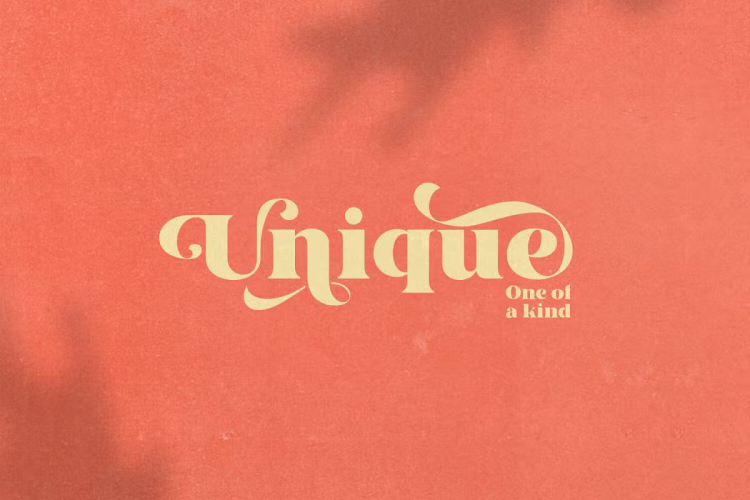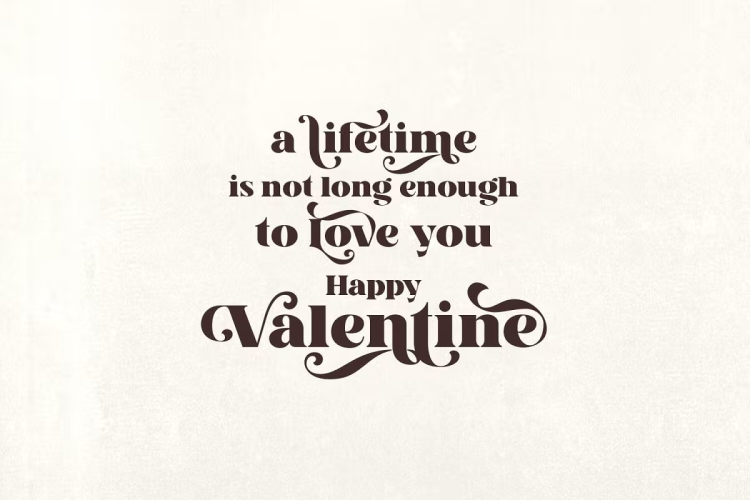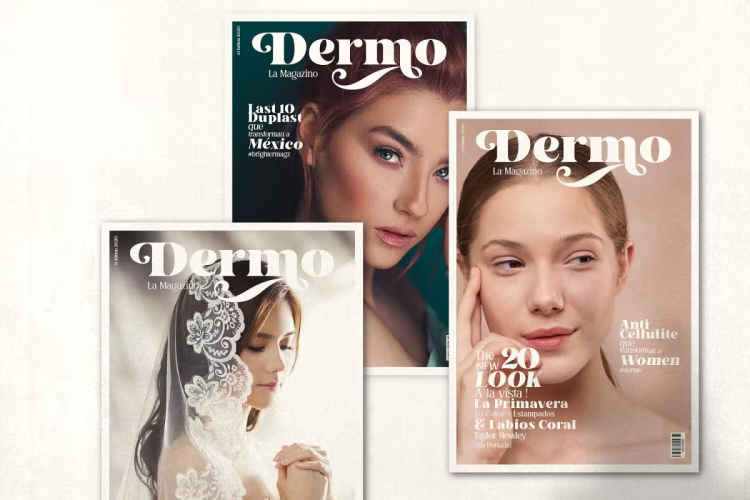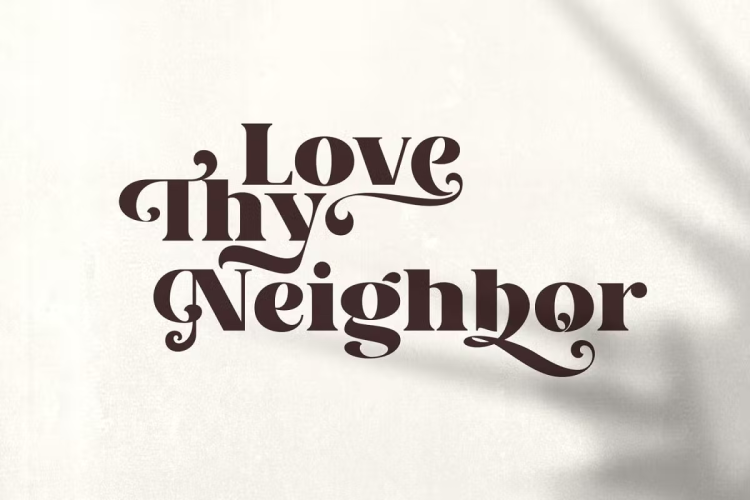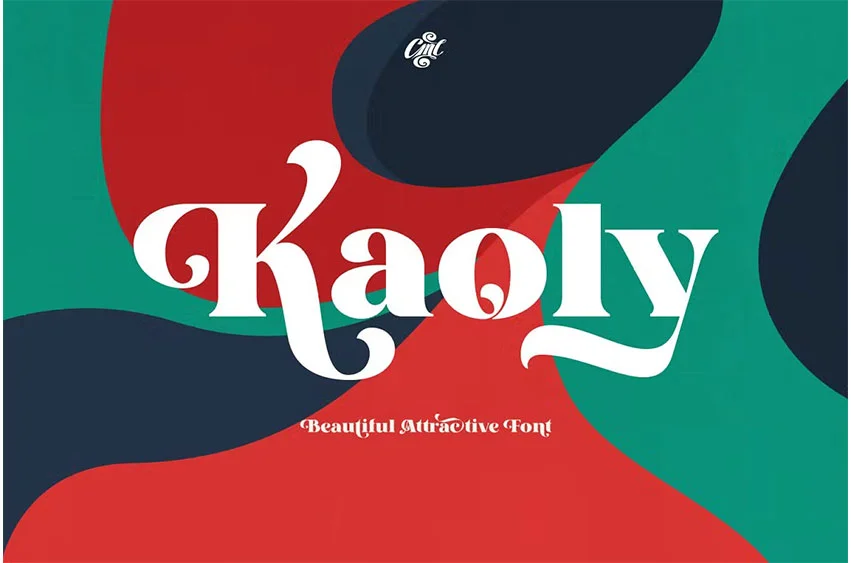
Kaoly Font
Kaoly Font Unique bold serif with a lot of unique and beautiful alternate characters that you can combine to get beautiful final lettering with nice and dynamic shapes just in seconds! Thanks for the unique alternates!
This is the lite version for this style, changes only on uppercase, we also removed the alternative letters to reduce the file size, it will load much faster your website when you’re using this font for the website heading text, products title or using applications that do not support OpenType features, it’s very easy to make beautiful words just by typing and tada.. you’re done.
Kaoly will make your work easy and fun.
Reports, white papers and book interiors hold the eye longer when the text face has real serifs; Kaoly Font keeps that rhythm without looking old-fashioned.
Food, spirits and cosmetics brands lean on serif wordmarks to suggest age and care. Kaoly Font gives that signal at wordmark size.
Set Kaoly Font for the body of an award or a diploma and keep the recipient name in a script; the pairing is what makes a document feel official.
It sits in the Serif Fonts group and reads as bold, professional, serif, serif fonts. That makes it a candidate wherever those qualities help: headings, packaging, social graphics and brand work. Set it at the size you plan to use before deciding.